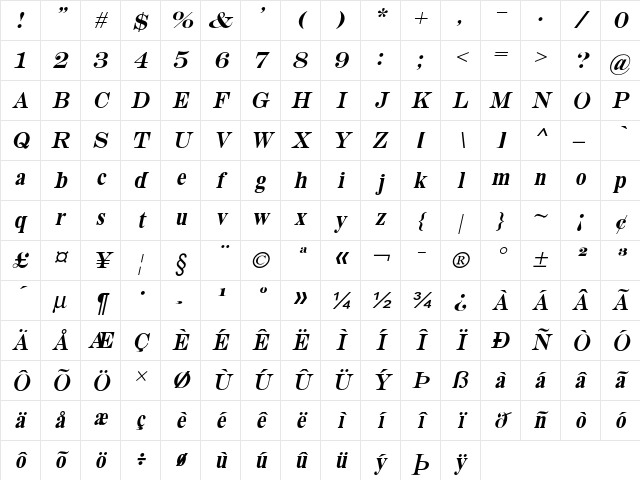
Muritania Italic
Muritania Family
Complete Muritania Italic glyph index. Displaying only characters natively supported by Muritania Italic font.
Design Context for Muritania
Muritania is a composed and adaptable typeface that performs quietly and consistently across a wide range of design contexts. The slanted form adds forward momentum and visual energy.
Pro Tip: Use Muritania for emphasis, pull quotes, and subheadings where its slanted energy can add rhythm to the layout.